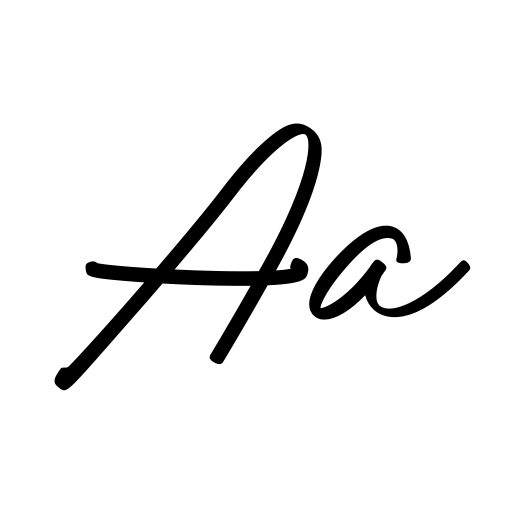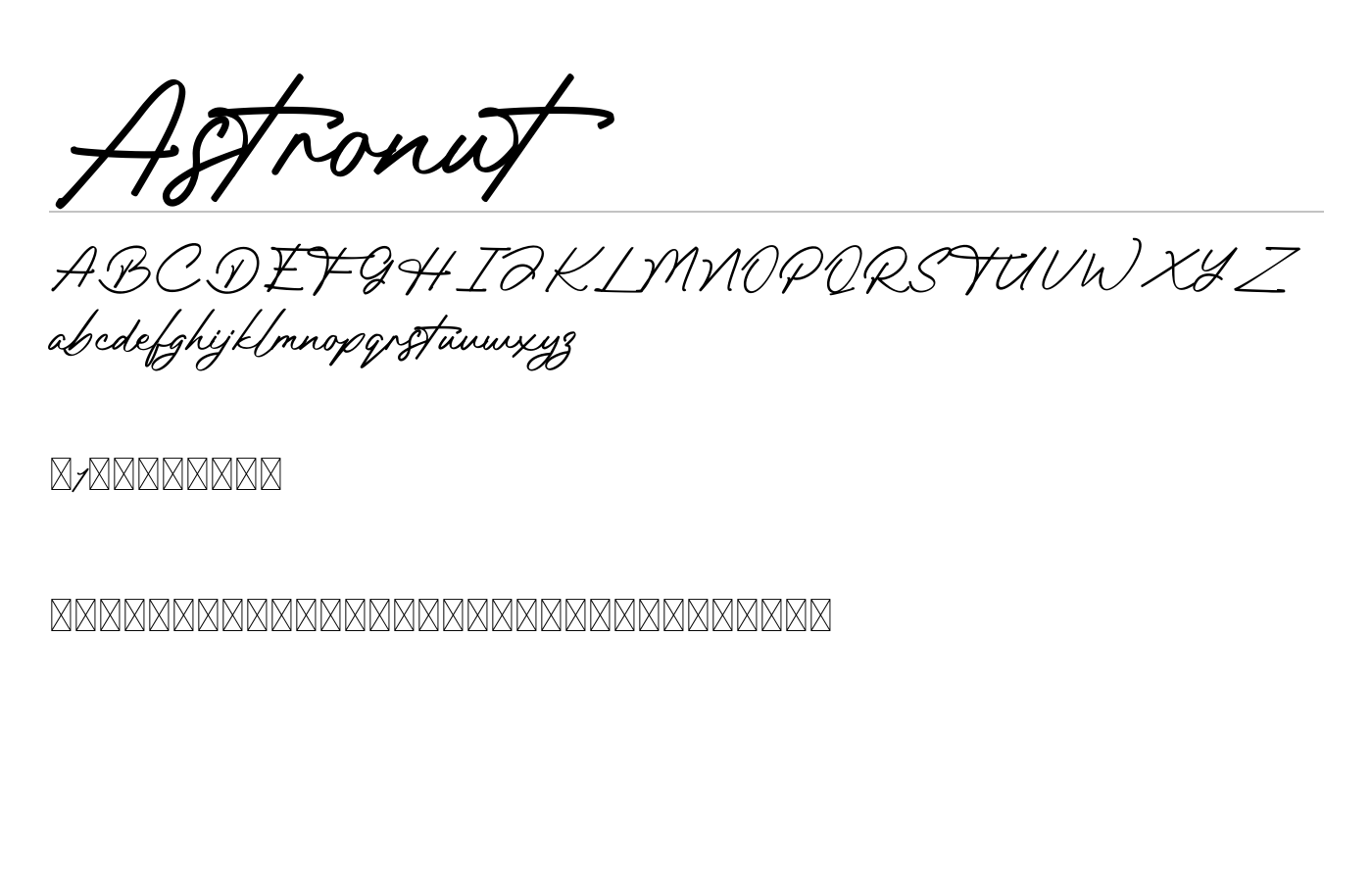
Astronut is a sleek and elegant script font that mimics smooth, flowing handwriting with a modern, casual flair. Its thin, consistent strokes and slightly slanted letterforms give it a refined yet approachable personality, making it ideal for branding, invitations, and creative design projects that seek a personal and stylish touch. This font works beautifully in headings or logos where a unique, handcrafted feel is desired.
Astronut Font
About Astronut Font